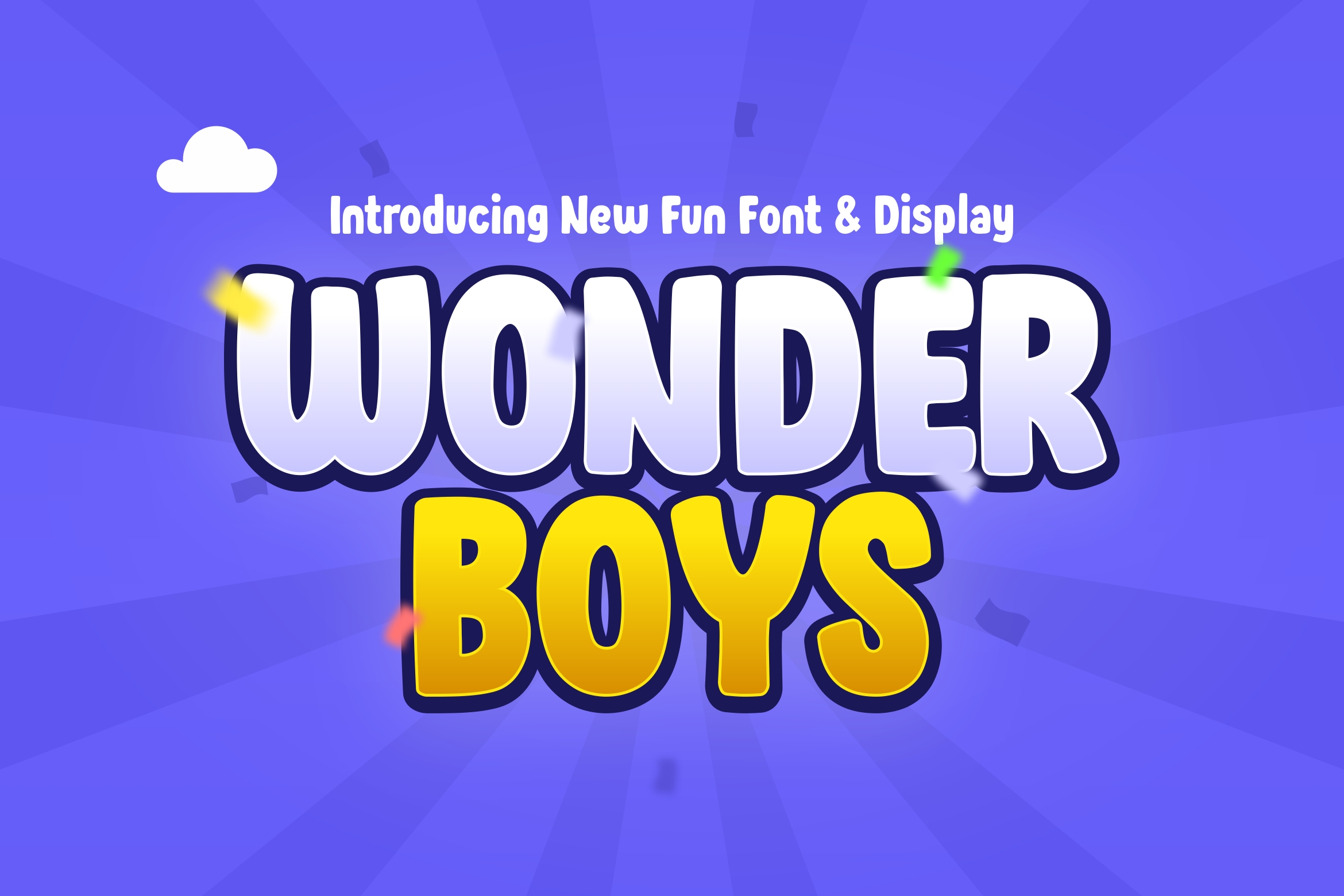
Wonder Boys
-Playful Kids Game Display Font
Wonder Boys - Playful Kids Game Display Font
Wonder Boys is a playful kids display font designed for fun and creative projects. Featuring rounded letterforms and a cheerful personality, this typeface brings a friendly and energetic style to game titles, children's branding, posters, and digital designs.
Created with a unique rounded shape and expressive character, Wonder Boys is perfect for projects that need a fun, approachable, and memorable visual style. This font works beautifully for kids' games, toys branding, educational materials, packaging, logos, mobile applications, and entertainment designs.
Wonder Boys includes uppercase and lowercase letters, numerals, punctuation, and multilingual support to help designers create engaging typography for various creative projects.
- Uppercase & lowercase characters
- Numbers and punctuation
- Multilingual support